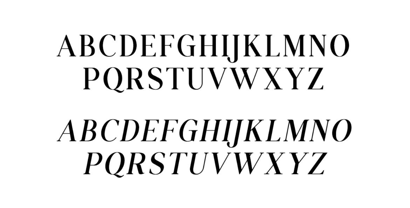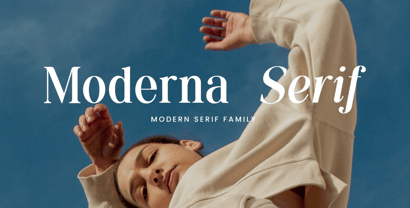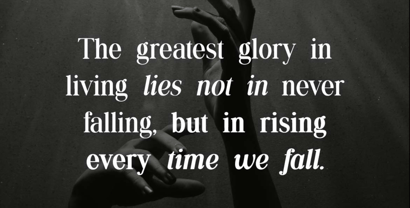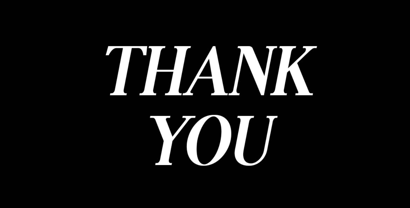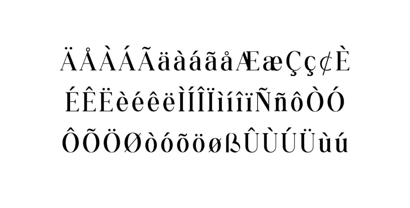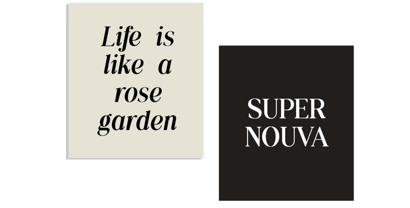
Moderna Serif
The Moderna Serif Font Family was designed by Hero and published by UICreative. Moderna Serif contains 9 styles and family package options.
Introducing our new product the name is Moderna Serif Font Family. Moderna Serif Font Family stands as a distinguished typographic achievement that masterfully balances contemporary design sensibilities with timeless serif elegance, meticulously crafted to deliver exceptional versatility across modern design contexts. This remarkable type system presents designers with a sophisticated toolkit that embodies refined aesthetics while maintaining superior functionality in today's diverse media landscape. The font's carefully constructed letterforms showcase a perfect harmony between classic proportions and contemporary styling, featuring thoughtful details that appeal to discerning typographers and practical designers alike.
Drawing inspiration from modernist typography principles while honoring serif traditions, Moderna Serif Font Family achieves an ideal equilibrium between clean, efficient design and expressive character. Its thoughtfully modulated stroke contrast and precisely crafted serifs create a rhythm that enhances reading experiences while projecting a confident, sophisticated voice. The typeface's meticulous development ensures exceptional performance across digital interfaces and print applications, with optimized forms that maintain their integrity and elegance across various sizes and contexts.
Moderna Serif Font Family excels in environments where designers require typography that communicates with clarity, sophistication, and contemporary relevance. Its versatility makes it ideal for editorial layouts, corporate communications, digital interfaces, brand identities, and publishing projects that demand both character and functionality. The font's ability to convey authority and refinement without sacrificing legibility or modern appeal makes it particularly valuable for projects requiring a balance of tradition and innovation, offering designers a typographic voice that resonates with audiences appreciating both technical excellence and aesthetic distinction.